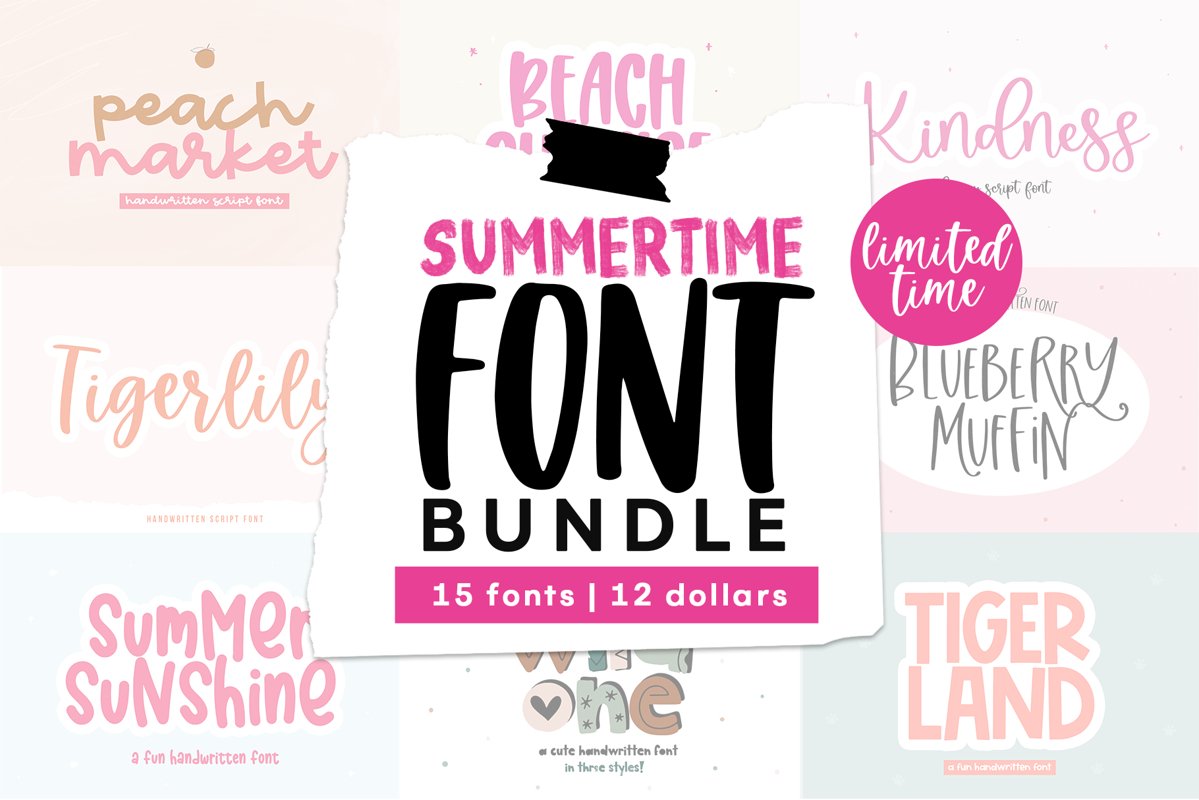
Summer Font Bundle - Handwritten Fonts for Crafters!
HANDWRITTEN FONT BUNDLE
Perfect for Crafters and Creatives!
Includes a few new fonts!
Fonts Included:
Kindness
Tigerlily
Peach Market
Summer Sunshine
Beach Sunrise
Dear May (2 fonts)
Moonlight
The Wild One (3 fonts)
Blueberry Muffin
Tigerland
Joyful
Lemon Cookies
California
Ice Cream
Sunday Scaries